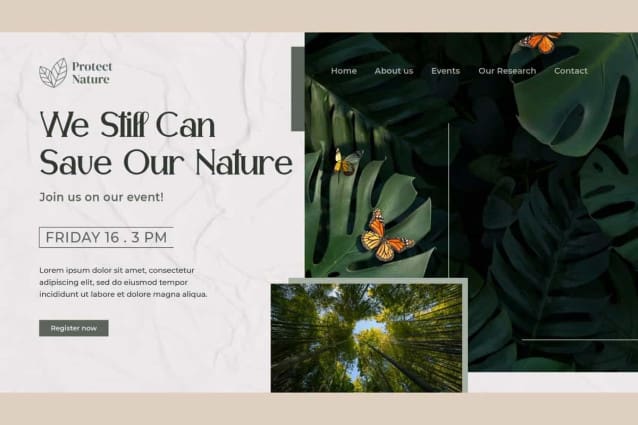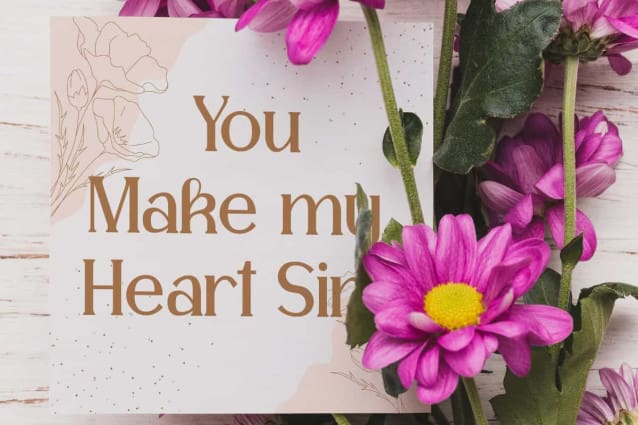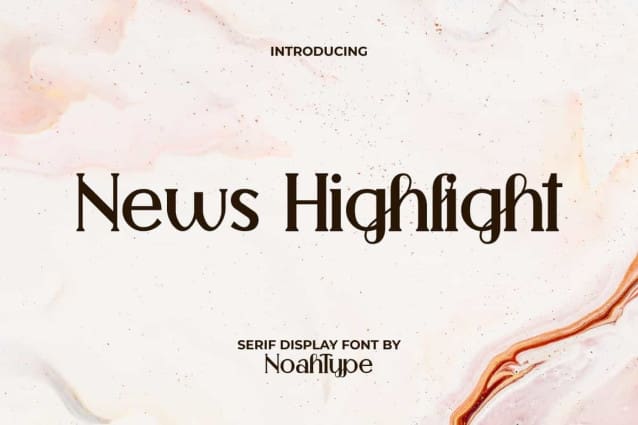
News Highlight Font
News Highlight Font is an artistically stunning well decorated serif display font by NoahType. This font has a unique shape and is suitable for design concepts that have themes of beauty, nature and luxury. It will be good for any designs, such as brand image, custom design, invitation, label, magazine, poster, product packaging, quote, signage, stationery, website page, and more!
News Highlight Font includes full set of Uppercase and Lowercase Basic Characters, Numerals, Punctuation, Symbol, and Ligature. The characters of this font will give aesthetic looks and perfect choice for many industries, such as advertising, art creative, café, event or wedding organizer, fashion, florist, printing, publishing, restaurant, skincare, etc.